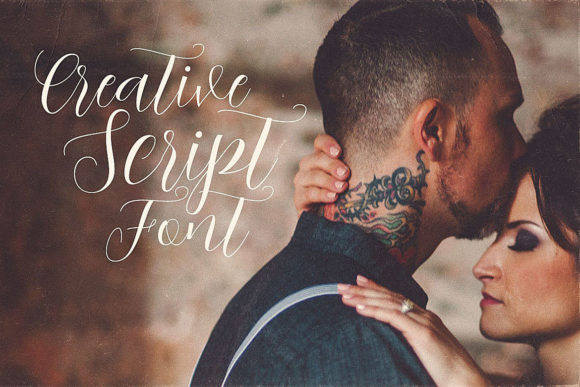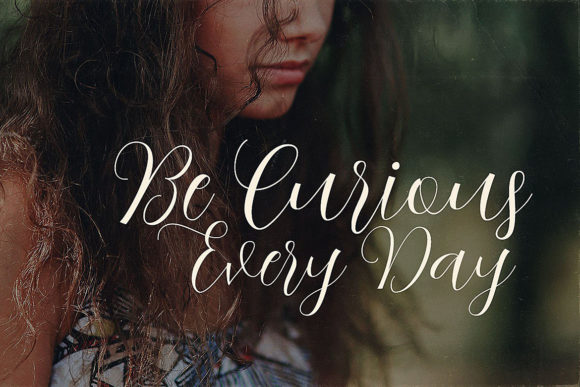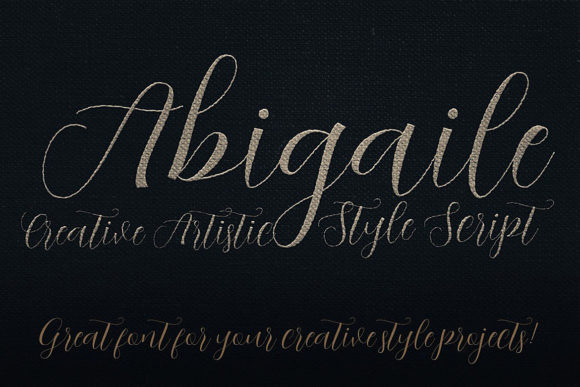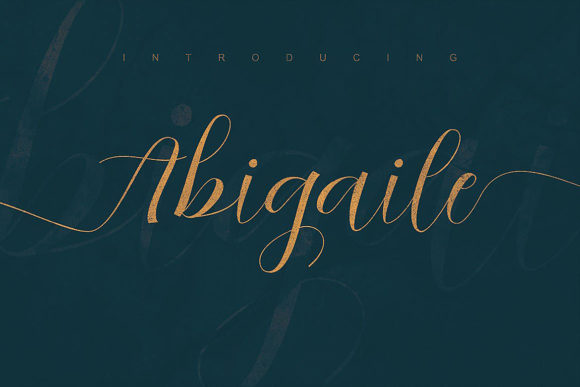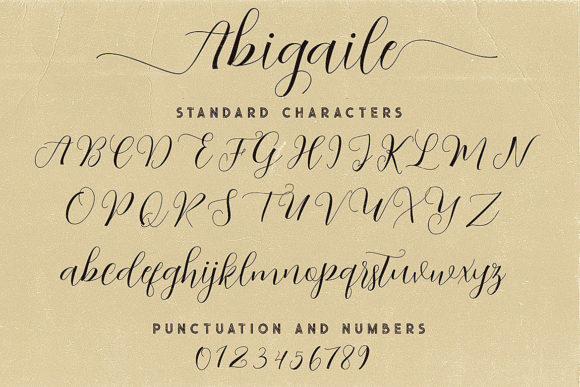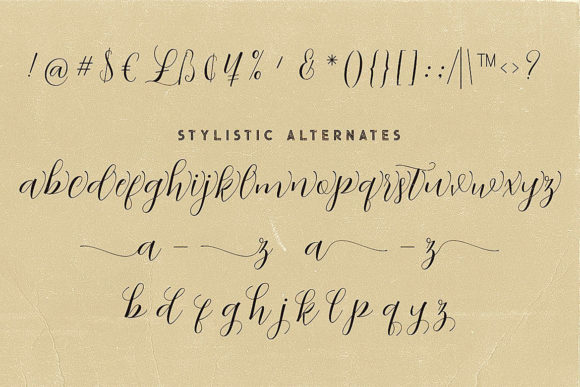
Introducing Abigaile Script Font: Elevate Your Designs with Elegance
Are you a designer or crafter looking for a unique and elegant font to add a touch of sophistication to your projects? Look no further than the Abigaile Script Font. This beautiful handwritten script font is perfect for creating stunning designs that exude refinement and poise.
The Characteristics of Abigaile Script Font
The Abigaile Script Font is a handwritten script font that boasts thin lines and an amazing dancing baseline. This distinctive combination gives the font a sense of fluidity and movement, making it perfect for adding an elegant touch to your designs. The thin lines also help to create a sense of delicacy and refinement, making it ideal for use in a variety of design projects.
Uses of Abigaile Script Font
The Abigaile Script Font is incredibly versatile and can be used in a wide range of design projects, including:
• Wedding invitations and stationery: Add a touch of elegance to your wedding invitations, save-the-date cards, and other stationery with the Abigaile Script Font.
• Branding and packaging: Use the Abigaile Script Font to create beautiful and sophisticated branding and packaging designs that will help your business stand out.
• Signage and display: The Abigaile Script Font is perfect for creating eye-catching signage and display designs that will grab attention and leave a lasting impression.
• Digital and print media: Use the Abigaile Script Font in your digital and print media, such as brochures, flyers, and social media graphics, to add a touch of elegance and sophistication.
Benefits of Using Abigaile Script Font
There are many benefits to using the Abigaile Script Font in your designs, including:
• Elegance and sophistication: The Abigaile Script Font adds a touch of elegance and sophistication to any design, making it perfect for high-end brands and luxury products.
• Versatility: The Abigaile Script Font is incredibly versatile and can be used in a wide range of design projects.
• Easy to read: Despite its elegant and refined appearance, the Abigaile Script Font is easy to read, making it perfect for use in body text and other long-form content.
• Unique and distinctive: The Abigaile Script Font is a unique and distinctive font that will help your designs stand out from the crowd.
Tips for Using Abigaile Script Font
Here are a few tips for using the Abigaile Script Font in your designs:
• Use it sparingly: While the Abigaile Script Font is beautiful and elegant, it can be overwhelming if used too much. Use it sparingly to add a touch of sophistication to your designs.
• Pair it with a sans-serif font: Pairing the Abigaile Script Font with a sans-serif font can help to create a beautiful and harmonious contrast.
• Experiment with different colors: The Abigaile Script Font looks beautiful in a range of colors, from metallic gold and silver to rich jewel tones.
The Abigaile Script Font is a beautiful and elegant handwritten script font that is perfect for adding a touch of sophistication to your designs. With its thin lines and amazing dancing baseline, it’s ideal for use in a wide range of design projects, from wedding invitations and branding to signage and digital media. Whether you’re a designer or crafter, the Abigaile Script Font is sure to become a favorite in your font collection.